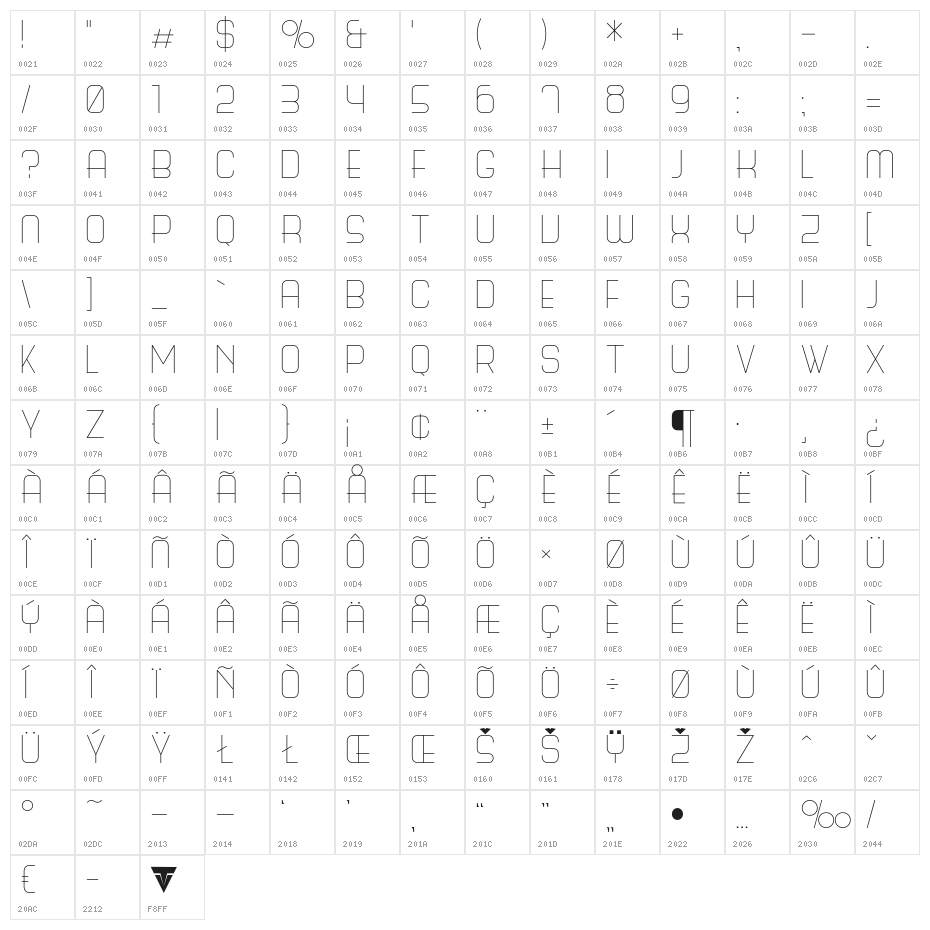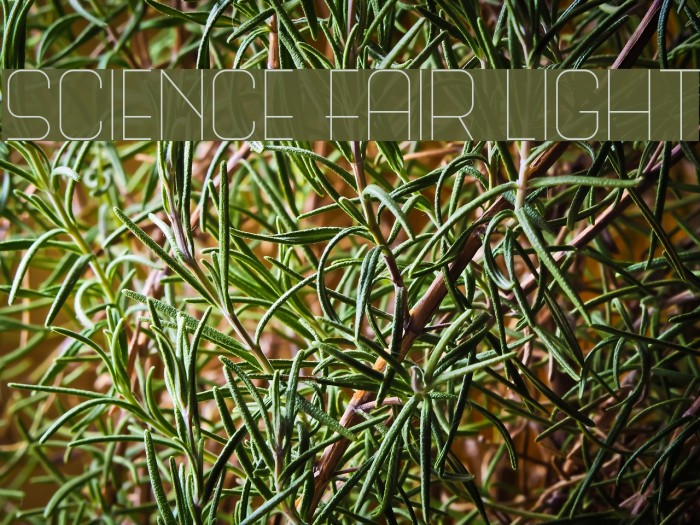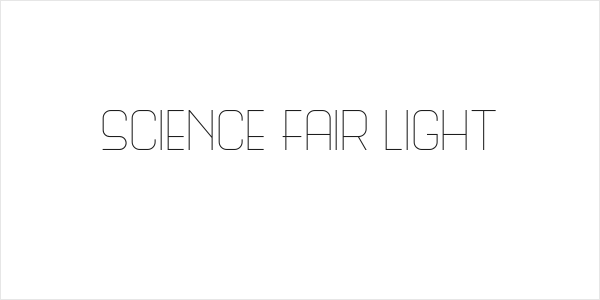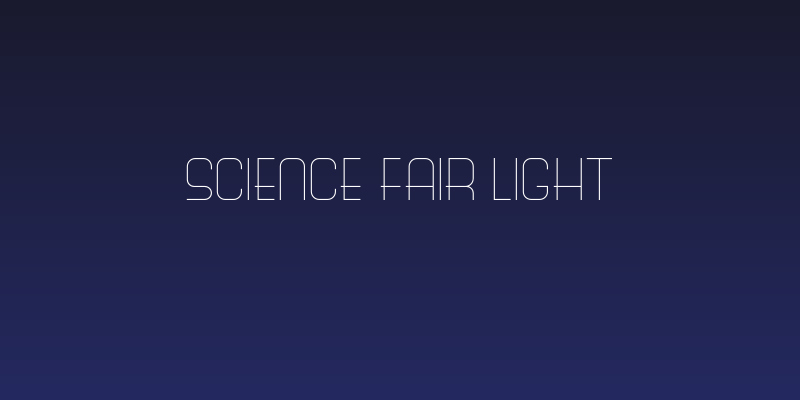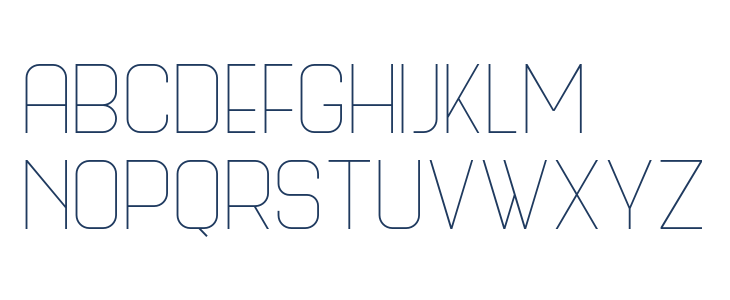
Science Fair Light Font
This font features a sleek, modern design with a geometric and minimalist aesthetic. The characters are constructed with thin, uniform lines that give it a light and airy feel. The uppercase and lowercase letters maintain a consistent height, contributing to a clean and orderly appearance. The numerals and special characters are designed to match the overall style, ensuring a cohesive look across all elements. The font's simplicity and elegance make it suitable for contemporary design projects, where clarity and sophistication are desired.
| Proposed Projects | Ideal for tech branding, modern web design, minimalist posters, and futuristic interfaces. |